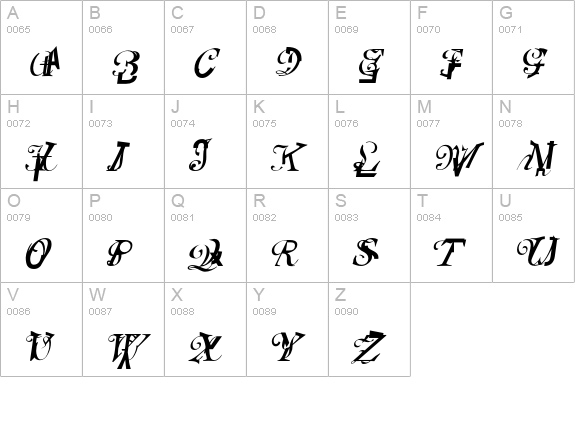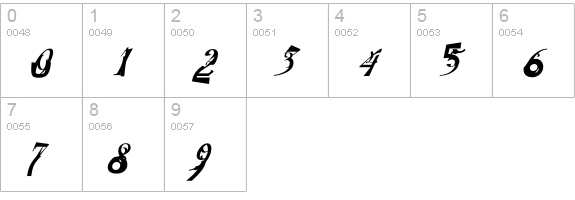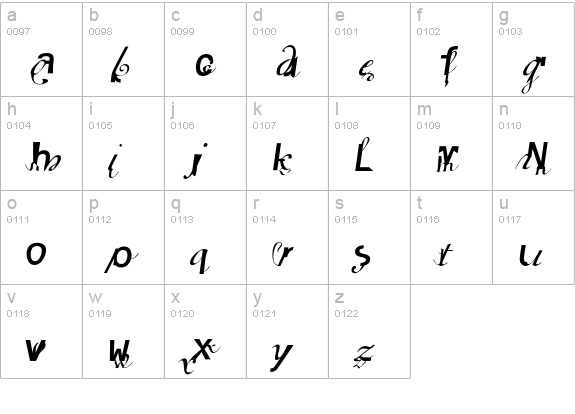
ElliottsBlueEyeShadow Font Details
ElliottsBlueEyeShadow font is a stunning display typeface that exudes elegance and sophistication. With its unique and artistic design, this font is perfect for adding a touch of creativity to your projects. The intricate details and beautiful curves make it a standout choice for headings, logos, and branding materials. What sets ElliottsBlueEyeShadow font apart is its versatility and ability to make a statement. Whether you're designing a poster, website, or social media graphic, this font will effortlessly catch the eye and leave a lasting impression. Best of all, ElliottsBlueEyeShadow font is completely free to download at FontsMarket.com. So, why wait? Add this remarkable font to your collection today and let your creativity shine!